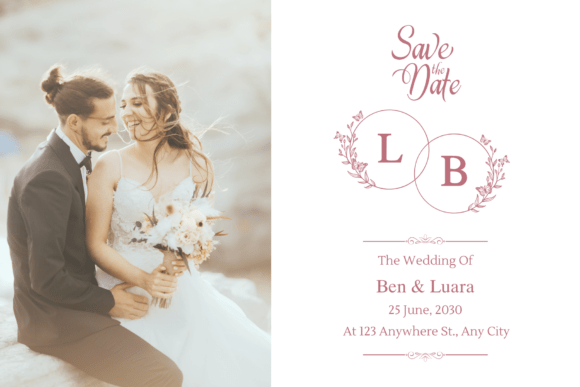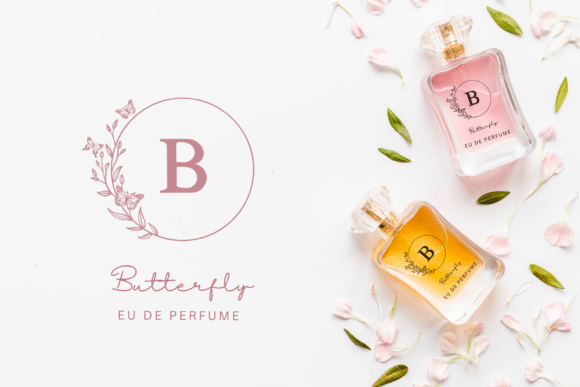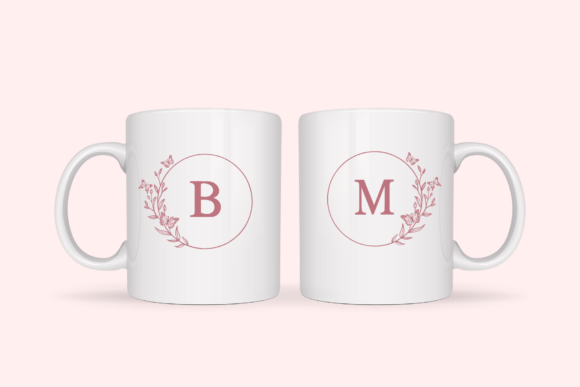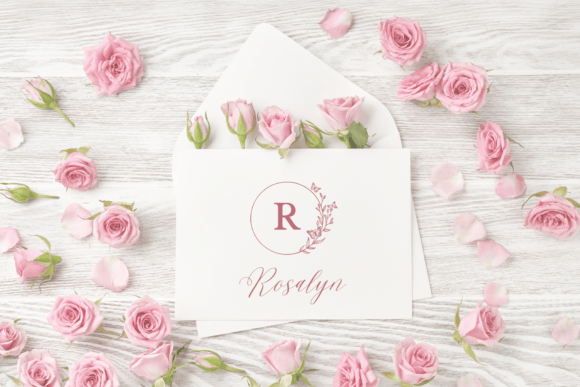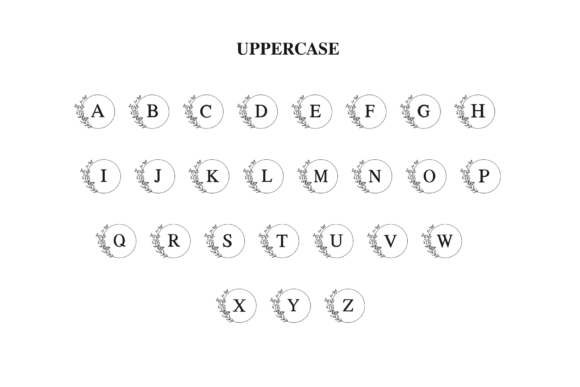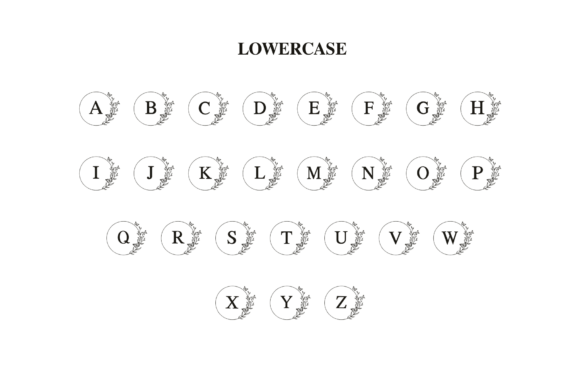
The Perfect Font for a Whimsical Touch
As a designer, have you ever stumbled upon a font that makes you stop in your tracks and envision a beautiful wedding invitation or a special birthday card? For me, that moment happened when I discovered the enchanting Butterfly Monogram Font. This elegant font is specifically designed to add a touch of whimsy and romance to any celebration.
With its delicate flower and butterfly round frame, the Butterfly Monogram Font is a perfect choice for special occasions. Whether you’re creating an invitation, a wedding card, or a customized gift, this font is sure to leave a lasting impression. For designers, this font is a valuable asset, offering a unique and creative way to express your artistic vision.
Butterfly Monogram Font Key Features
- Font Style: Monogram Font with a whimsical, hand-drawn design, ideal for creating custom monograms and special designs.
- Unique Characteristics: Features intricate details, flourishes, and subtle textures, making it perfect for creating elegant and sophisticated designs.
Butterfly Monogram Font Review
Overall, I think the Butterfly Monogram Font is a unique and eye-catching addition to any design project. ✨ The font’s whimsical and playful feel makes it perfect for wedding invitations, baby showers, or any other celebration where a touch of elegance is needed. The font’s intricate details and delicate curves add a level of sophistication that’s hard to find in other monogram fonts.
However, there are a few limitations to consider. ⚠️ The font’s complexity may make it difficult to use in situations where readability is a top priority. Additionally, the font’s large file size may cause issues with slower computers or devices. Finally, the font’s uniqueness may also make it more difficult to pair with other fonts, which could limit its versatility.
Pros and Cons:
- ✨ Unique and eye-catching design
- ✨ Perfect for weddings, baby showers, and other celebrations
- ✨ Intricate details and delicate curves
- ⚠️ Complex design may impact readability
- ⚠️ Large file size may cause technical issues
- ⚠️ May be difficult to pair with other fonts
Overall, I think the Butterfly Monogram Font is a great choice for designers looking to add a touch of whimsy and elegance to their projects. While it may have some limitations, its unique design and versatility make it a valuable addition to any design library.
The Butterfly Monogram Font is ideal for:
2. Personalized gifts and decorations.